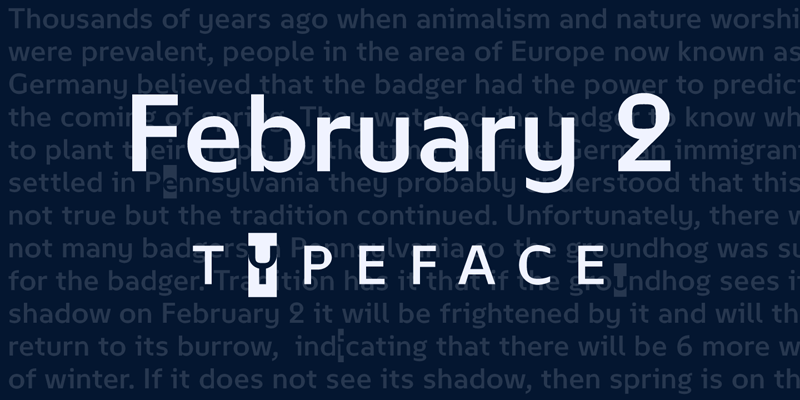
Preview and download February 2 Font. Created by Igor Kosinsky in Basic Various styles with Free for personal use license.
The font of February 2 was developed on the experimental principle of grotesque, combining the contrast between an oval and a rounded rectangle. The font is designed in two styles: normal and initials. This font is free for personal use only. Сommercial license available at: https://fontbundles.net/pj154/221127-february-2 |